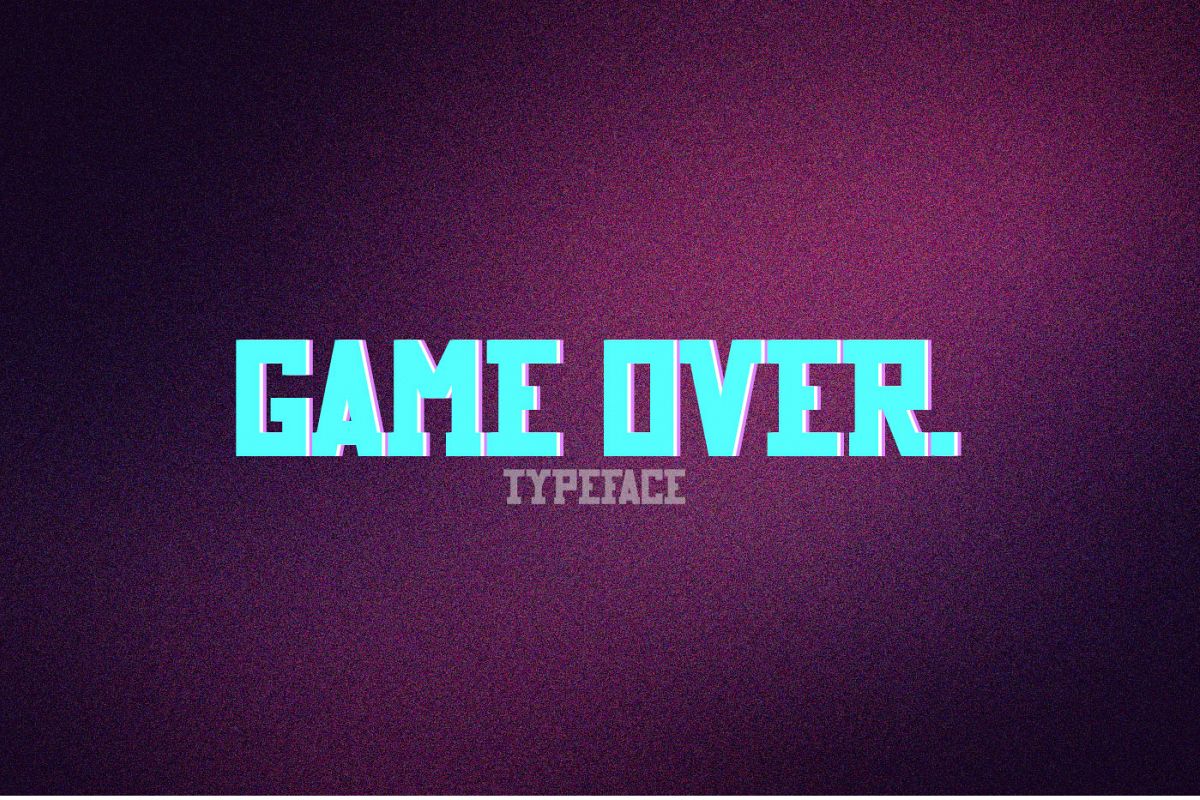
Created By Avalon Design
Game Over typeface
Game Over is a display font based on the arcade games from the 80s and 90s. Call it vintage, call it thematic, if you want.